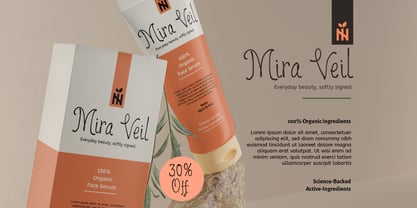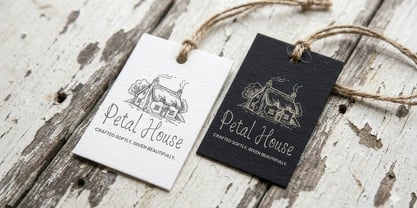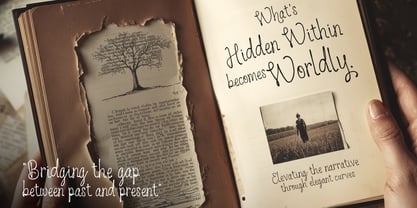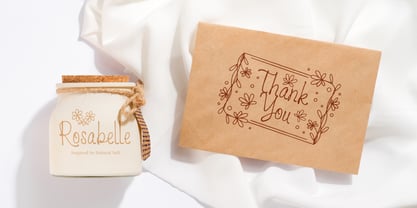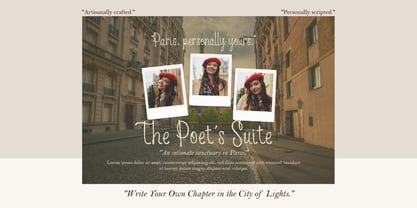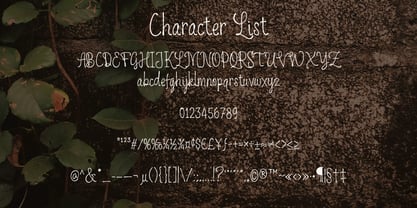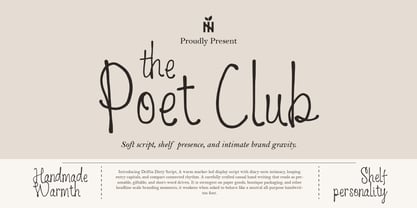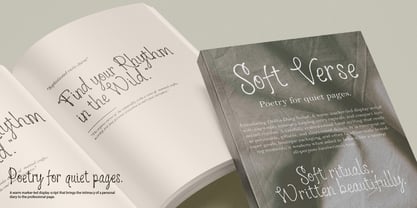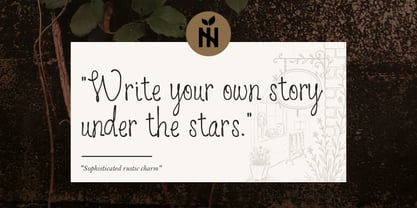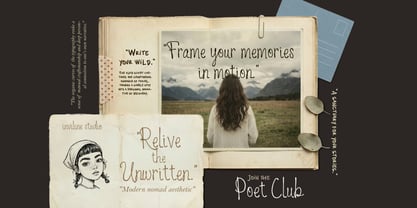
PoetClub
by Inviline
The PoetClub Font Family was designed by Virgiawan Listanto and published by Inviline. PoetClub contains 1 styles. More about this family
Poet Club bridges the gap between past and present. Designed by Inviline Studio, this warm, marker-led display script captures the intimacy of a personal diary while maintaining a professional appearance. In a market saturated with neutral, all-purpose handwritten fonts, Poet Club stands out with its specialized design. It features looping entry capitals and a compact, connected rhythm, making it exceptionally effective for paper goods and impactful headline branding. This font reads as personable and giftable, establishing a unique "Shelf Personality." Perfectly aligned with the "Soft-Luxury" and "Modern Nomad" aesthetics of 2026, Poet Club is an ideal typographic choice for organic cosmetic packaging, high-end travel journalism, boutique hotel identities, and sophisticated rustic wedding suites. The family boasts a comprehensive set of OpenType features and extensive multilingual support, enhancing the narrative for global brands. With its elegant style and versatility, Poet Club is perfect for branding, editorial design, and any project that seeks to convey warmth and sophistication.
Designers: Virgiawan Listanto
Foundry: Inviline